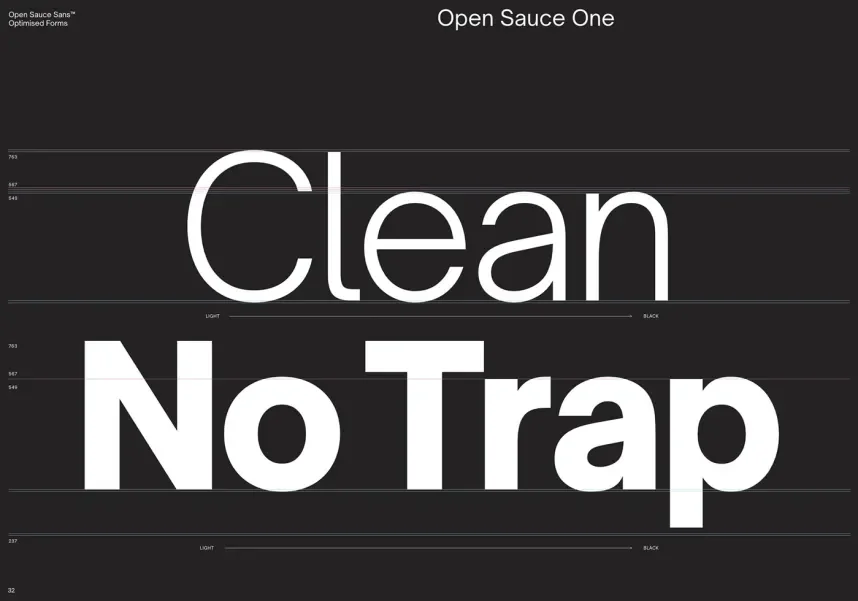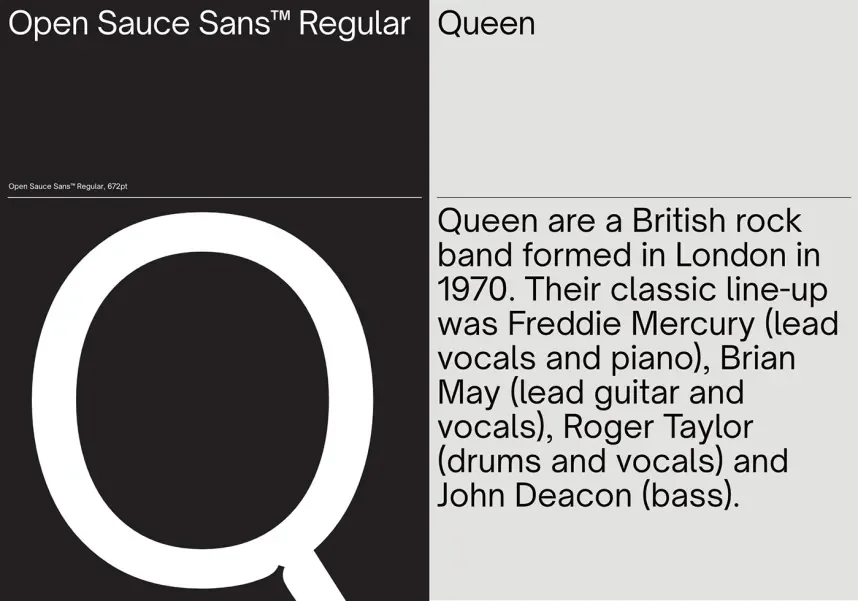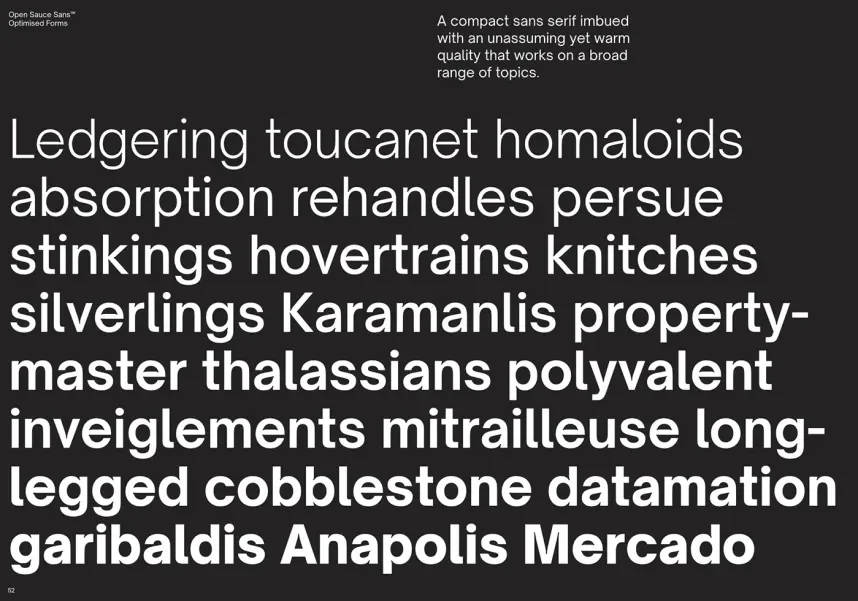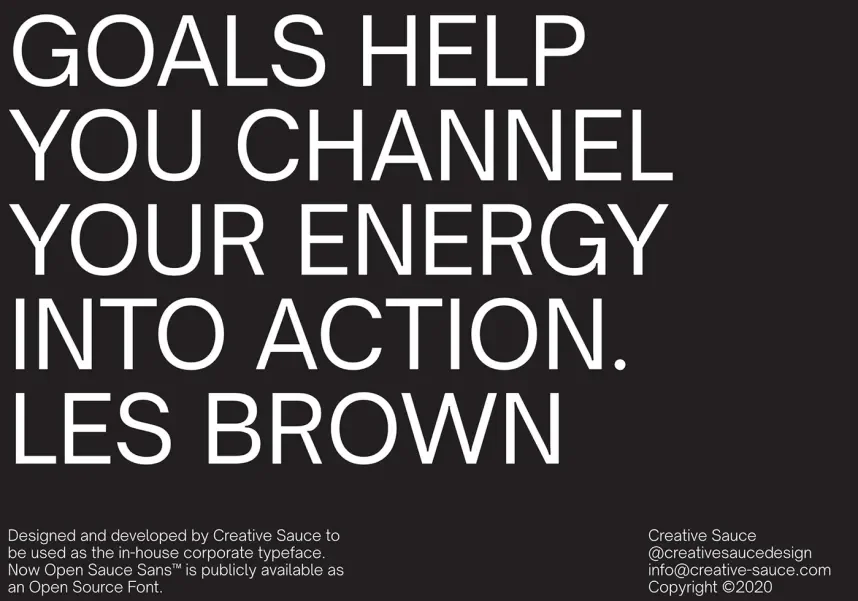
Open Sauce Font
Designed by Creative Sauce
Open Sauce feels like a secret weapon for designers who want clean, compact text without fuss. Made by Creative Sauce, it’s built to perform on screens and in print. It’s no-nonsense, versatile, and surprisingly friendly, ideal for body copy, interfaces, or any context where quality matters.
Designer: Alfredo Marco Pradil (Creative Sauce)
Released: 2022 (active development ongoing)
Style: Modern grotesk sans-serif superfamily (Sans, One, Two
Three distinct styles: with ink traps, clean, and rounded terminals
42 styles total, 7 weights each with italics across three versions
Compact proportions and low contrast for excellent legibility in small text
Wide language support covering Latin, Cyrillic, Greek, and more
This Font is a dream for UI, documentation, and clean editorial design. Use Sans for primary text, One or Two for headings or accents. For contrast, pair it with a serif like Lora or use it alongside a humanist sans like Open Sans; it keeps things modern but not sterile.